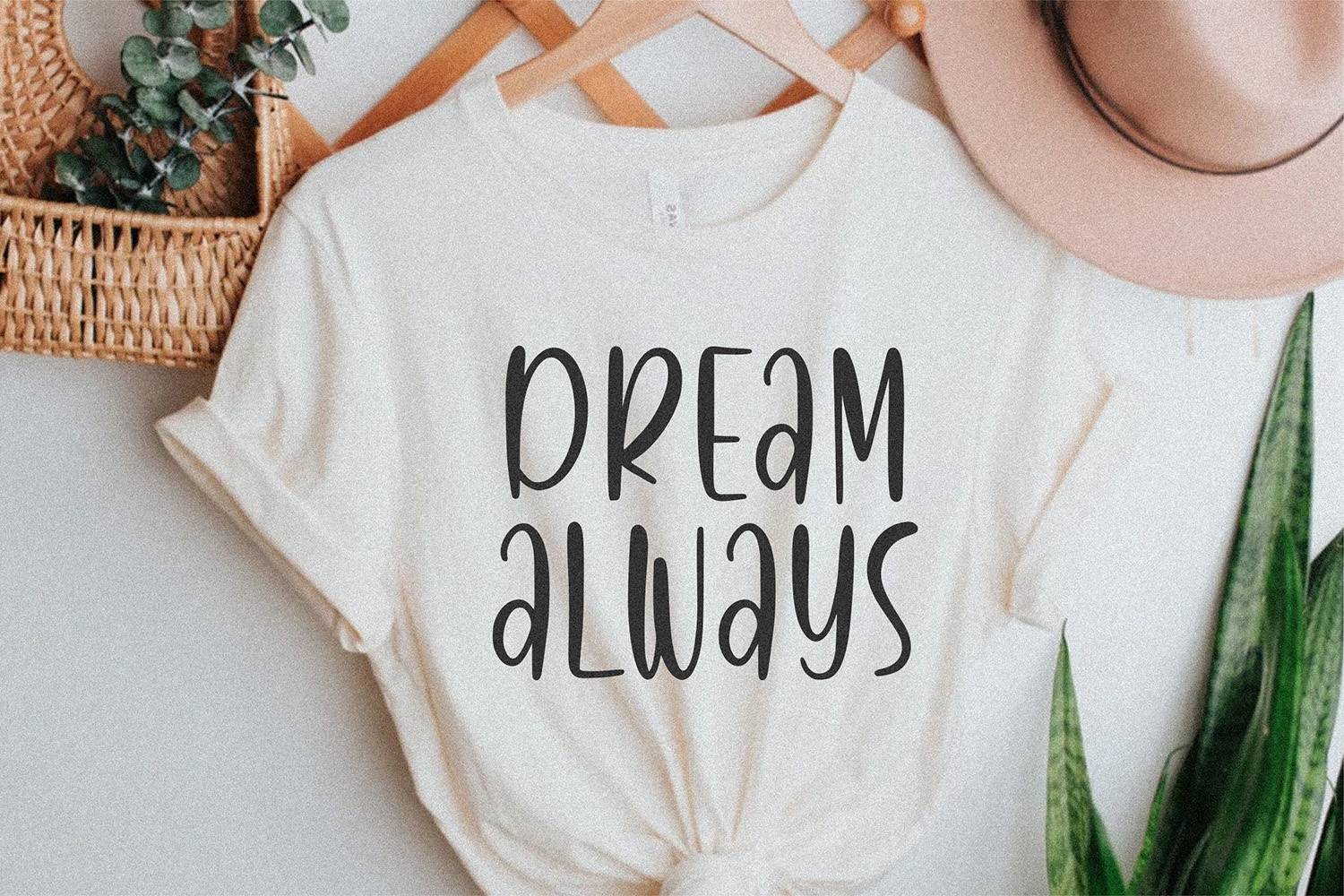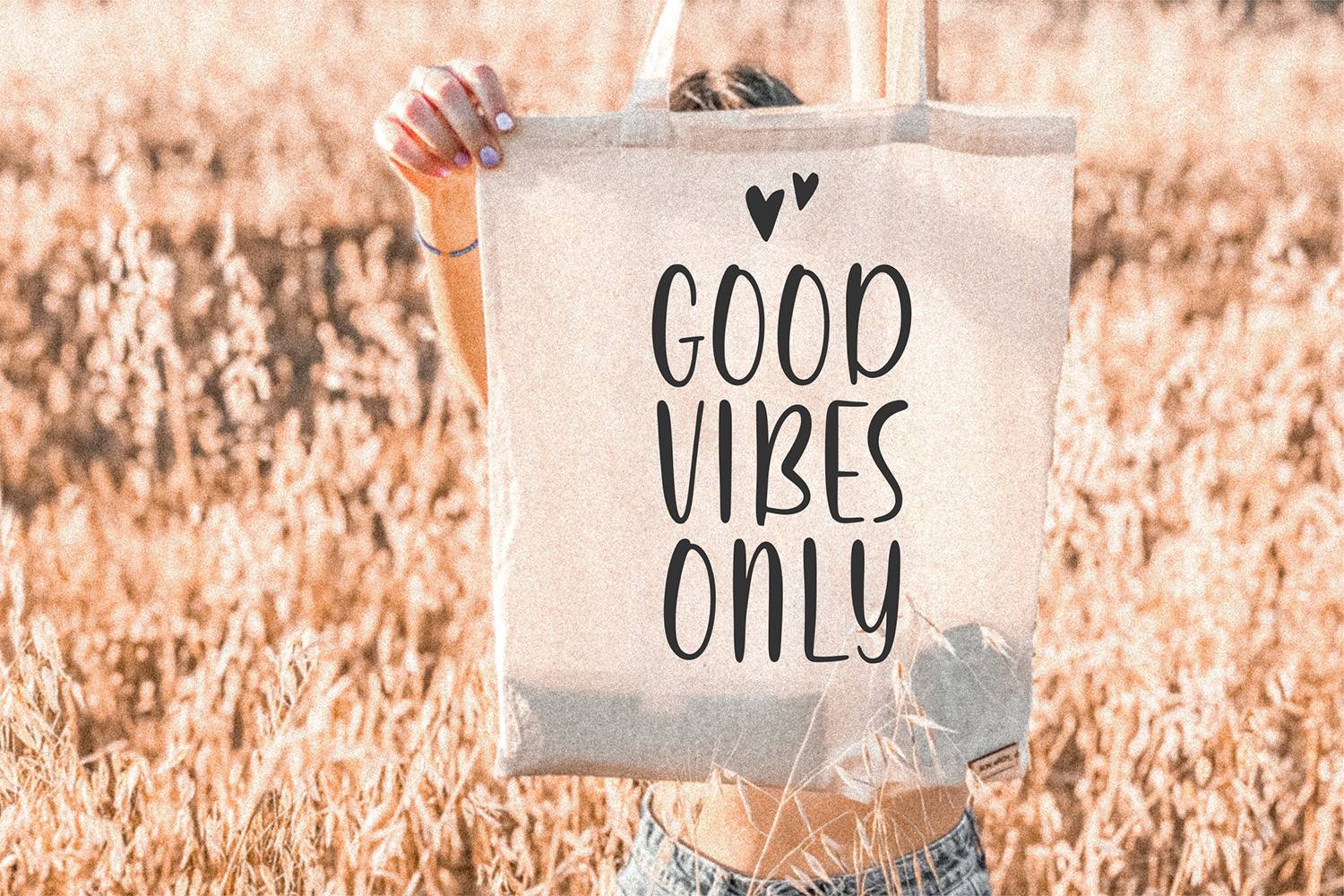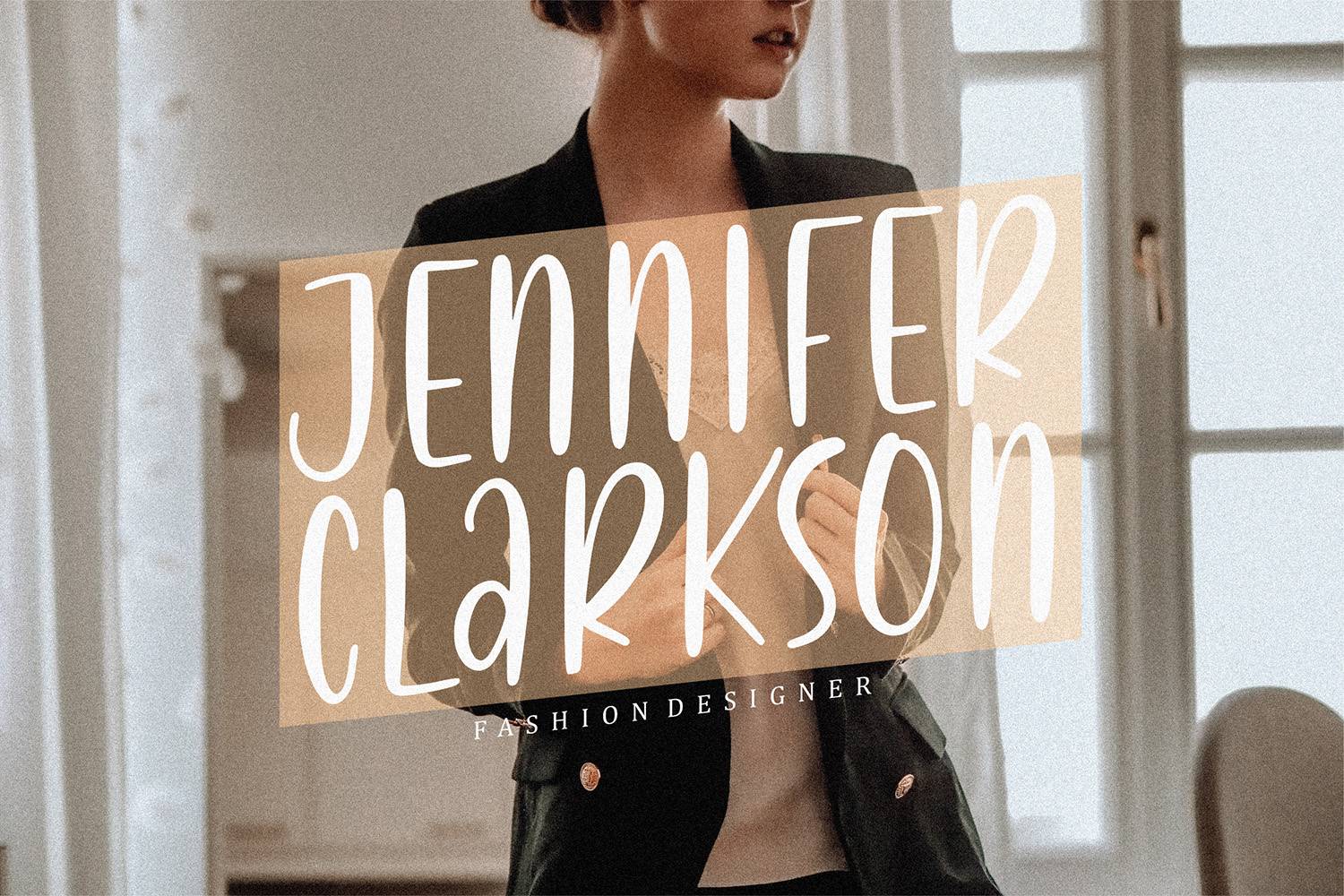
Smith Cyclops is a playful and quirky sans serif font with tall, narrow letterforms and a lightly handwritten feel. Its thin strokes and casual curves create a friendly, approachable vibe that works well for fun branding, invitations, and informal digital content. This font shines in headlines and display use where a unique, energetic tone is desired.
Smith Cyclops Font
About Smith Cyclops Font